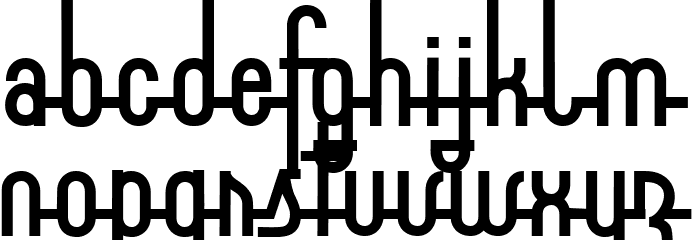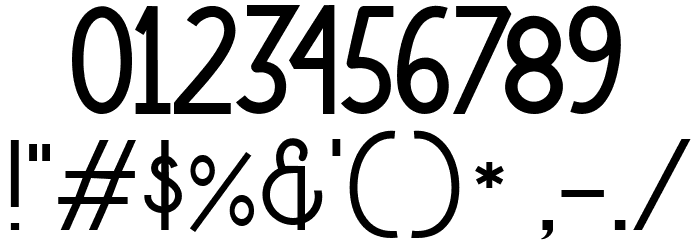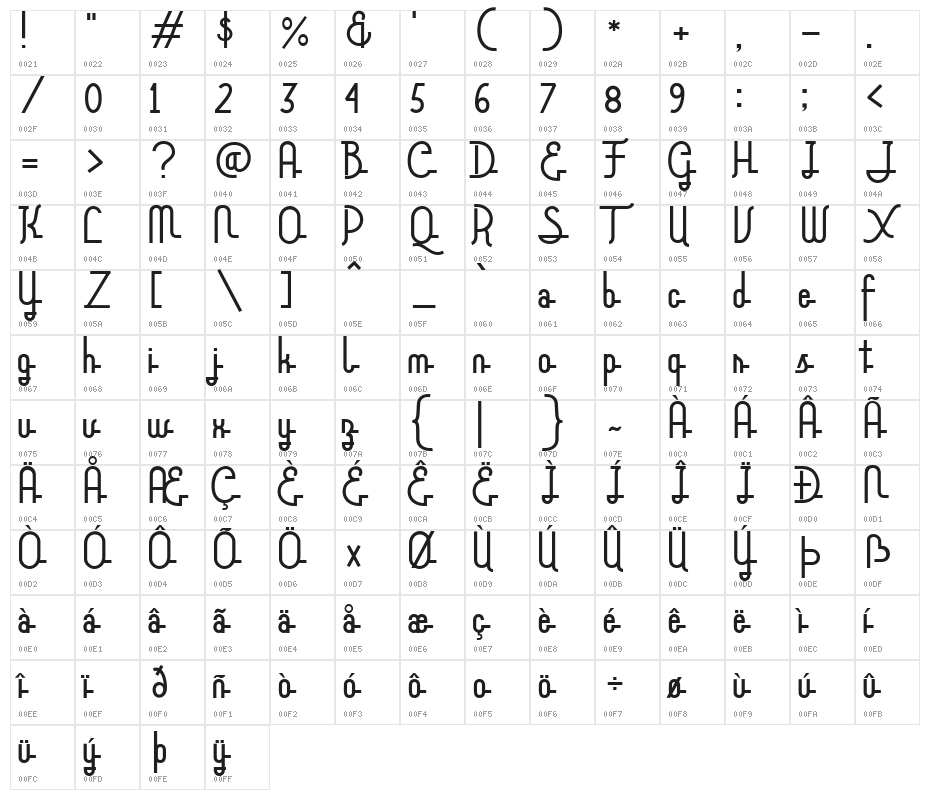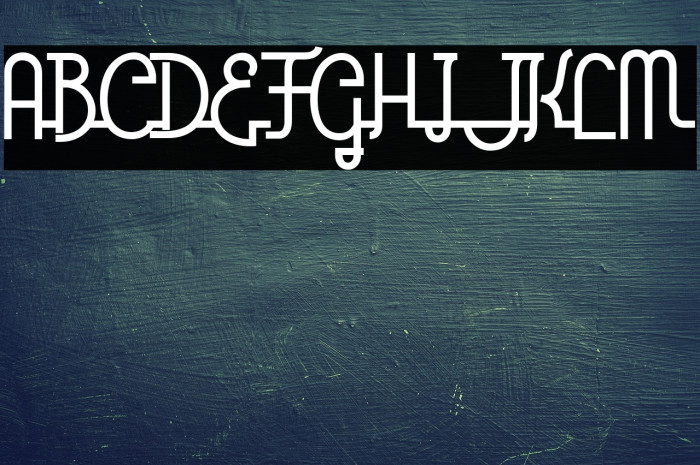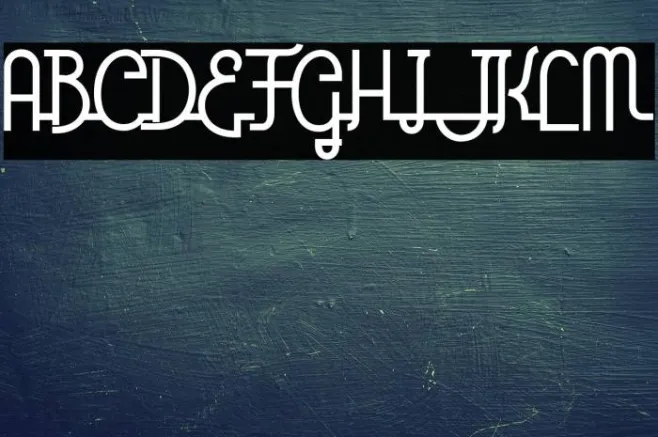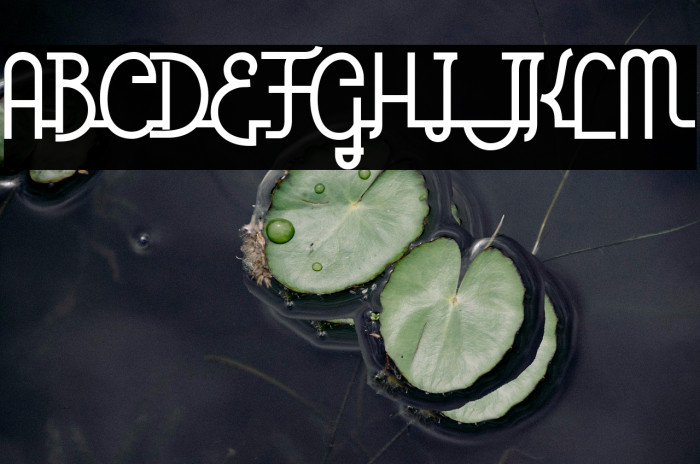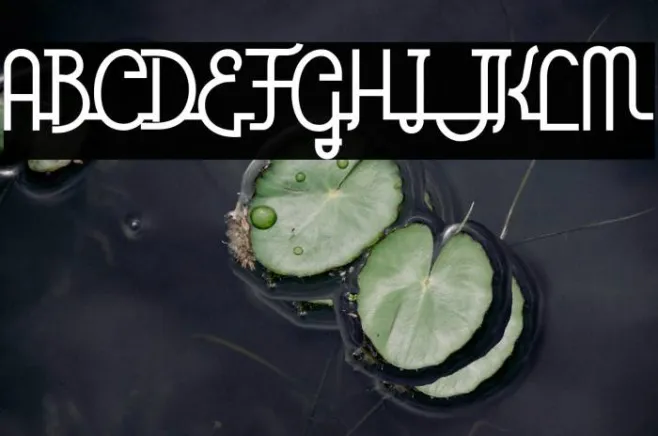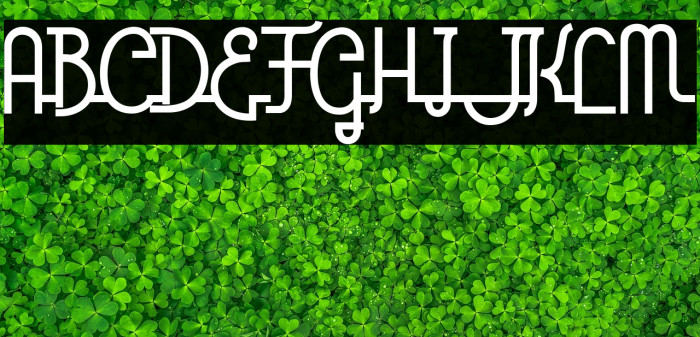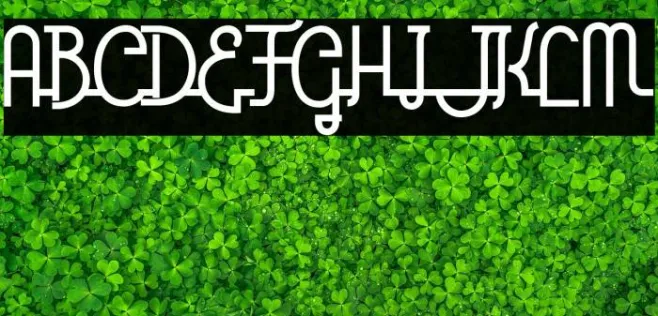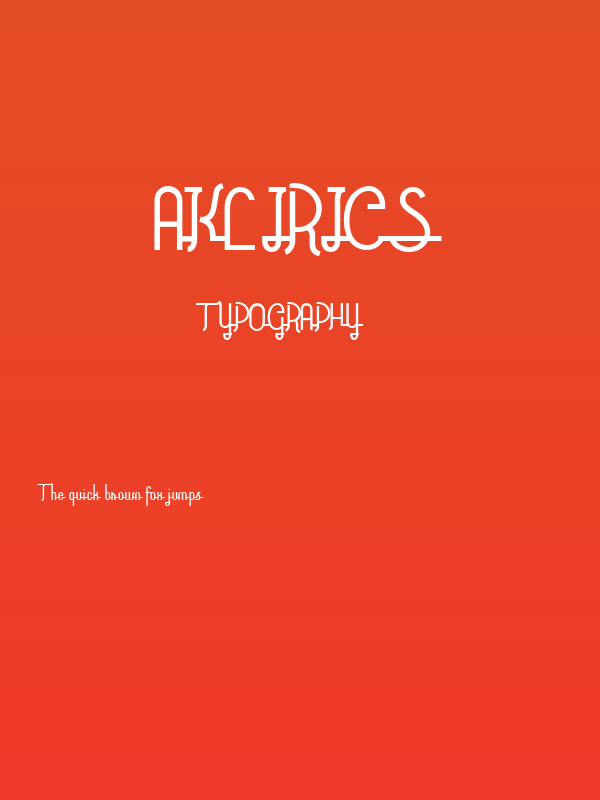
Aklirics Font
This font features a unique and modern design with a geometric and interconnected style. The uppercase letters are characterized by their tall and narrow structure, with horizontal lines intersecting the vertical strokes, creating a sense of continuity and flow. The lowercase letters maintain a similar aesthetic, with a consistent line weight and rounded edges that add a touch of softness to the overall appearance. The numerals are clean and easy to read, following the same design principles as the letters. Special characters are well-integrated, maintaining the font's cohesive look. This font's distinct style makes it suitable for creative and contemporary projects.
A modern, geometric font with interconnected lines and a cohesive design.
- Font: Aklirics
- Proposed Projects: Ideal for branding, logos, posters, and modern web design.